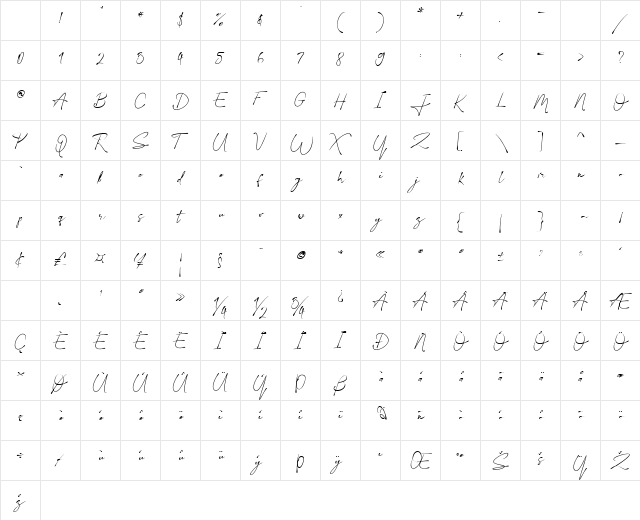
Complete Javiersa Regular glyph index. Displaying only characters natively supported by Javiersa Regular font.
Javiersa is a composed and adaptable typeface that performs quietly and consistently across a wide range of design contexts.